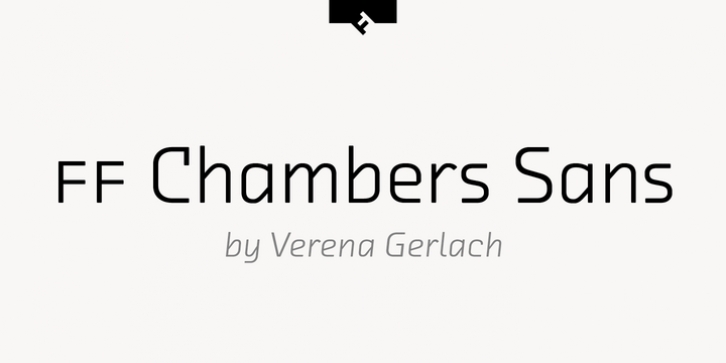
FF Chambers Sans downloadDesigner: Verena Gerlach
Publisher: FontFont
German type designer Verena Gerlach created this sans FontFont in 2008.
The family has 8 weights, ranging from Regular to Black (including italics) and is ideally suited for festive occasions, editorial and publishing, logo, branding and creative industries as well as sports.
FF Chambers Sans provides advanced typographical support with features such as swashes, ligatures, small capitals, alternate characters, case-sensitive forms, and stylistic alternates.
It comes with a complete range of figure set options – oldstyle and lining figures, each in tabular and proportional widths.